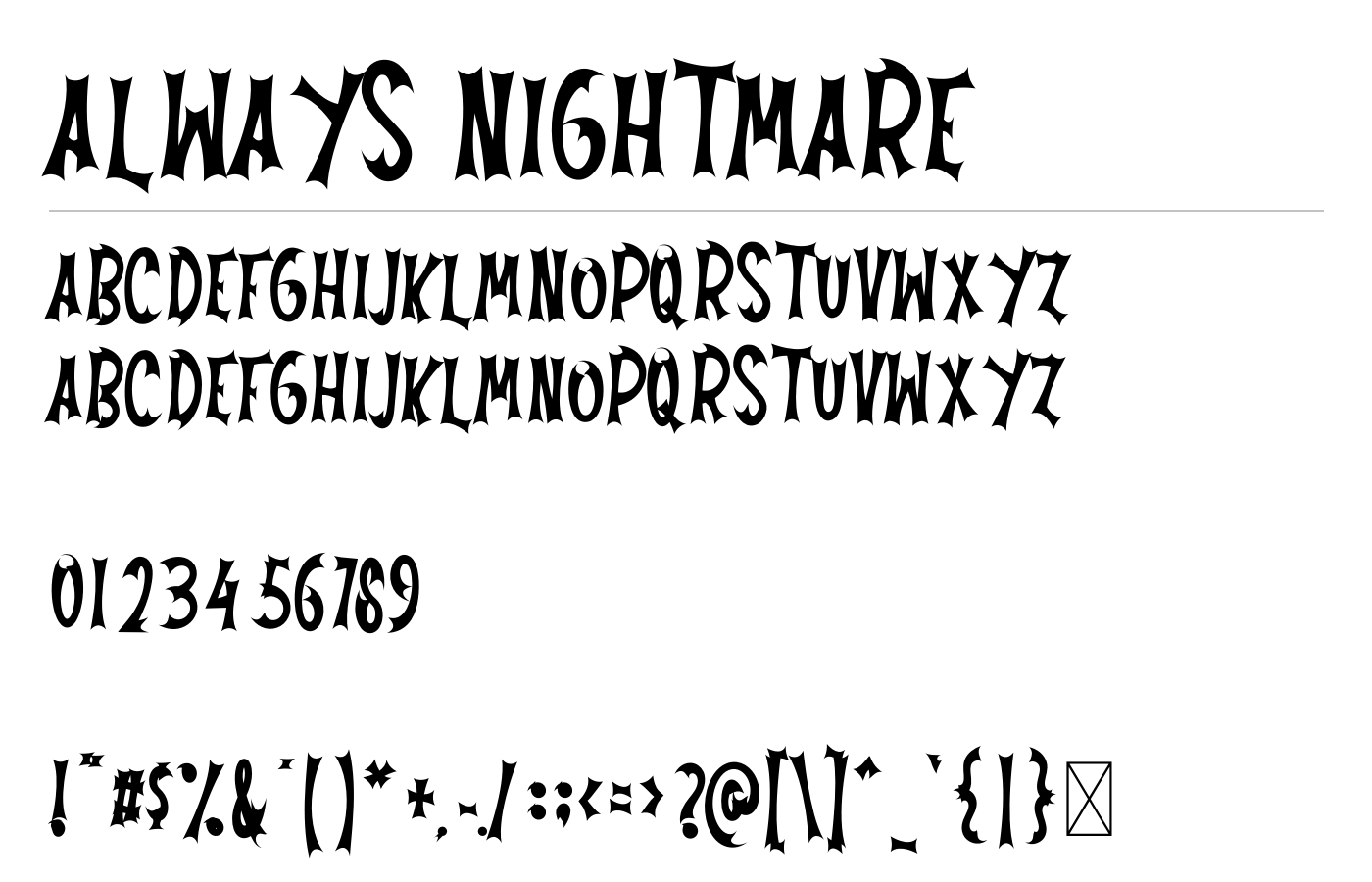
Always Nightmare is a bold, decorative display font with sharp, jagged edges that evoke a spooky, eerie vibe perfect for Halloween or horror-themed designs. Its condensed letterforms and high contrast strokes create a striking, dramatic look that stands out in titles, posters, and themed branding, adding a playful yet sinister personality to any project. This font works best for eye-catching headlines and creative designs where a chilling, supernatural mood is desired.
Always Nightmare Font
About Always Nightmare Font